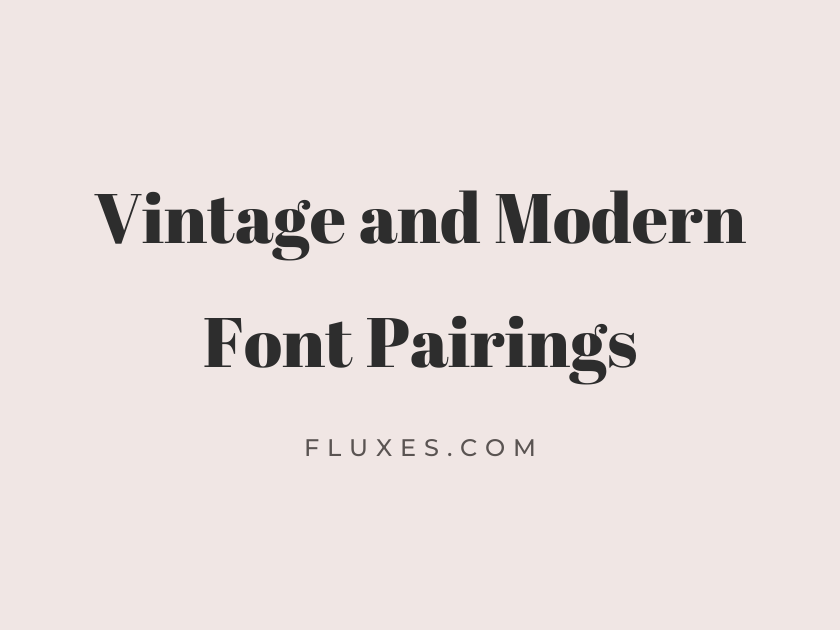
10 Best Vintage and Modern Font Pairings
Pairing a vintage font with a modern one is one of the most reliable ways to give a project personality without sacrificing readability. The trick is contrast with restraint: a display face with real historical character up top, and a clean, well-behaved text face underneath that lets the vintage piece do the talking. These font pairings for branding, packaging, and editorial work all follow that logic, and every family below is free on Google Fonts.
1. Abril Fatface + Karla
Abril Fatface carries the weight of old letterpress posters, with its dramatic thick-thin contrast and ball terminals. Karla’s low-contrast, humanist letterforms stay out of the way and keep long paragraphs comfortable, which makes this pair a favorite for cafes, bakeries, and boutique labels chasing a heritage feel.
2. Alfa Slab One + Work Sans
Alfa Slab One reads like carnival or circus lettering, thick and unapologetic, so it needs a body font with no personality of its own to compete with. Work Sans is exactly that: a tidy grotesque with generous x-height that renders small text cleanly on packaging or menus.
3. Rye + Nunito Sans
Rye’s western wanted-poster silhouette immediately sets a rustic, saloon-door mood, which is why it works best used sparingly, as a logotype or short headline. Nunito Sans, with its rounded but restrained shapes, softens the pairing just enough to keep it feeling contemporary rather than costume-like.
4. Cinzel + Jost
Cinzel borrows its proportions from Roman inscriptional capitals, giving it a monumental, almost architectural quality. Jost’s geometric circles and even stroke widths feel unmistakably modern, and the gap between the two eras is what makes the combination feel intentional rather than accidental, suiting museum branding or classical music programs.
5. Special Elite + Archivo
Special Elite mimics a worn manual typewriter strike, complete with irregular edges, so it instantly signals detective fiction, journalism, or a personal, handwritten mood. Archivo’s neutral, slightly condensed grotesque provides a stable, legible base so that quirky headline never has to carry long passages of text.
6. Vollkorn + Manrope
Vollkorn was drawn to evoke the warmth of old German book typefaces, with sturdy serifs and a literary calm that suits long-form reading. Manrope’s clean geometric sans brings a contemporary counterpoint for captions, navigation, and metadata, making this a dependable choice for publishing sites that want a vintage-modern font combination without feeling costumed.
7. Yeseva One + Public Sans
Yeseva One has a curvy, hand-cut quality reminiscent of Victorian signage and old apothecary labels. Public Sans, built for government and civic clarity, is about as neutral as a typeface gets, and that plainness lets Yeseva’s flourishes stay the star of the composition on invitations or product labels.
8. Bevan + Mulish
Bevan is a slab serif with a stocky, stamped look, the kind of letterform you would expect on an old tin sign or feed sack. Mulish keeps things simple and rounded at small sizes, so the pairing feels sturdy and approachable rather than heavy-handed, a good fit for general stores and craft brands.
9. Old Standard TT + DM Sans
Old Standard TT was modeled on early twentieth-century academic serifs, with slightly irregular curves that feel scholarly rather than decorative. DM Sans is engineered for screen clarity with consistent spacing, so pairing the two gives research-driven or archival projects a font pairing that reads as credible on both paper and pixels.
10. Ultra + Poppins
Ultra is an extra-bold slab with the exaggerated thick strokes of 1930s advertising type, built to be seen from across a room. Poppins, a geometric sans with perfectly circular bowls, gives the pairing a rounded modern anchor, which keeps this bold retro pair legible in body copy despite the headline’s heavy attitude.
Tips for mixing vintage and modern fonts
Let the vintage font carry the character and keep it short: a headline, a logotype, a pull quote. Save the modern font for anything read at length.
Match x-heights where possible so the two families sit comfortably at different sizes on the same page.
If the vintage face has heavy texture or ornament, choose the plainest modern sans you can find; two expressive fonts competing rarely works.